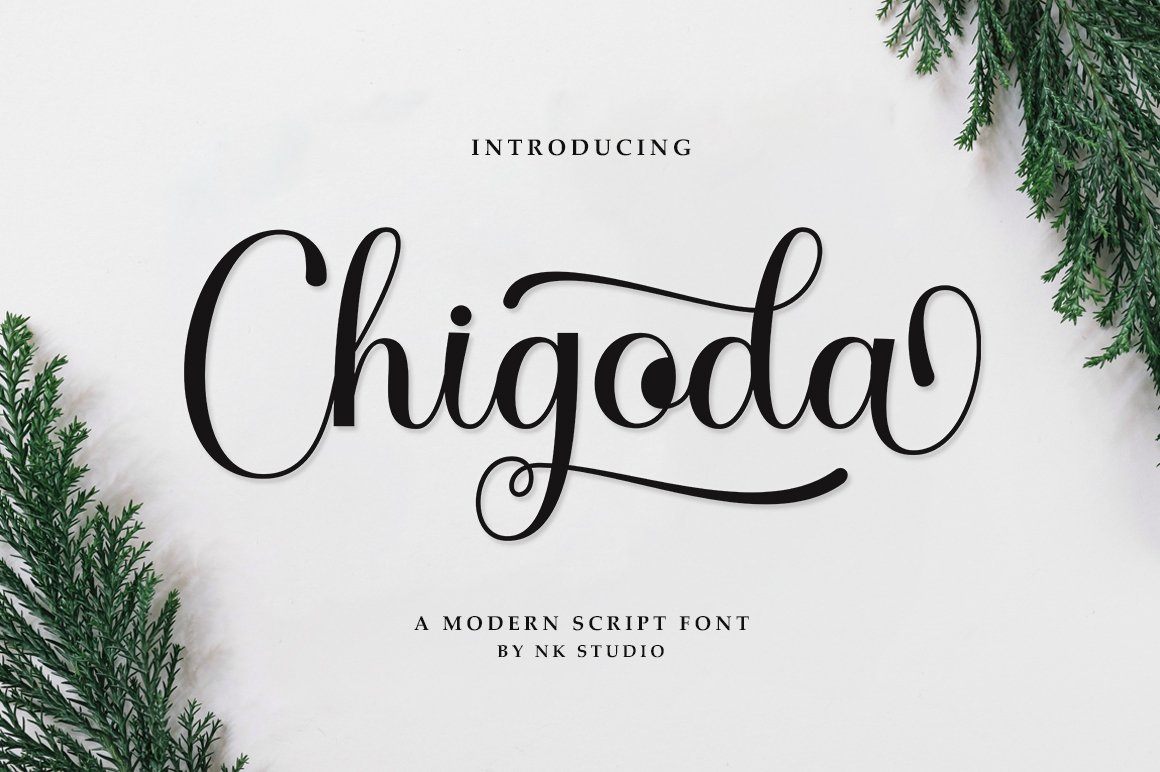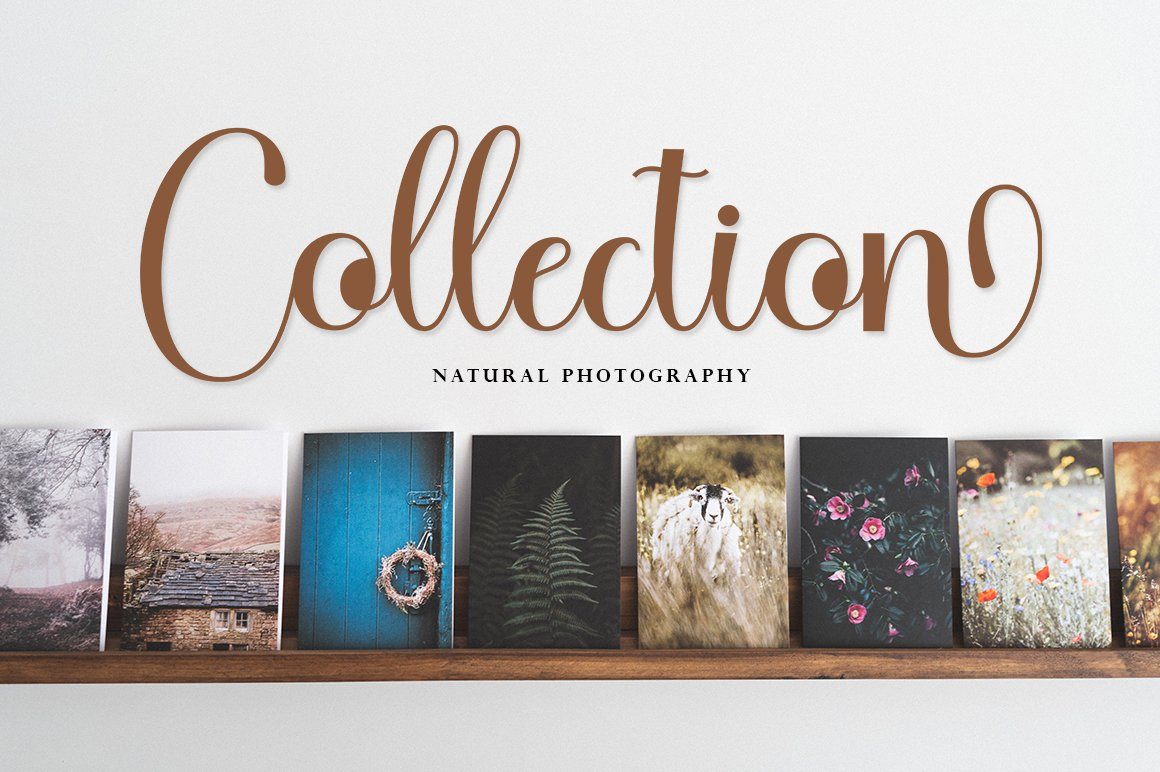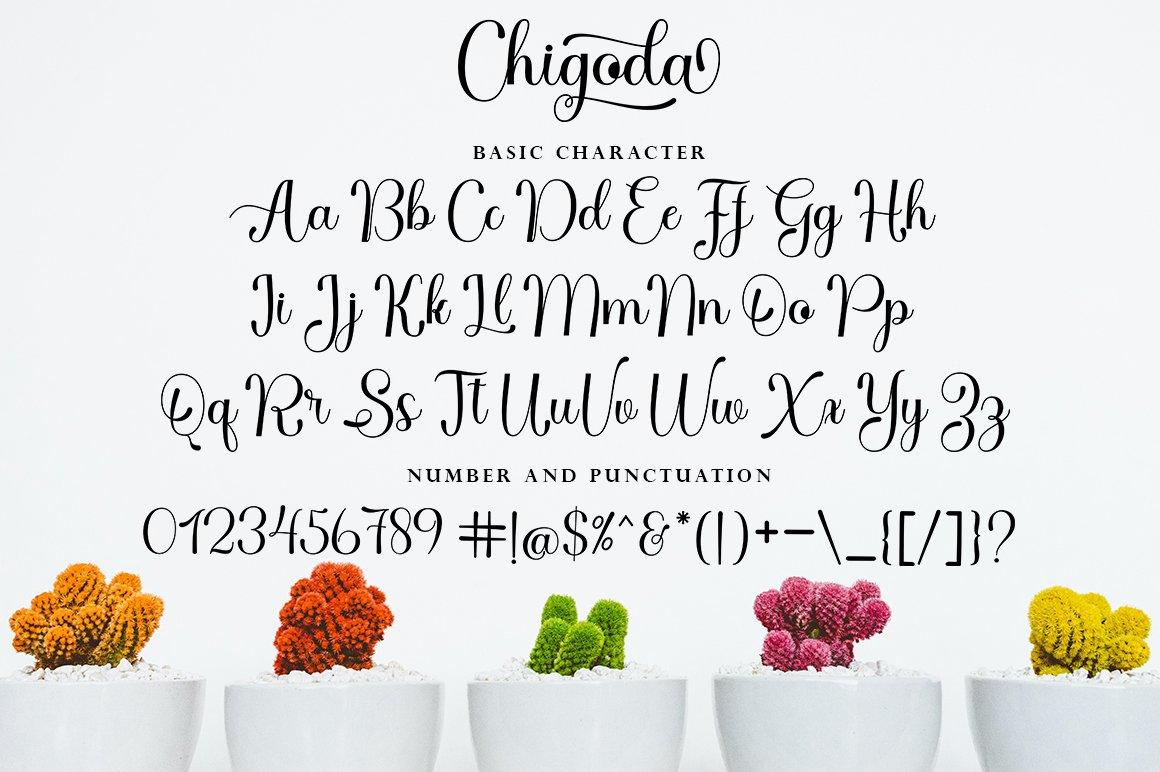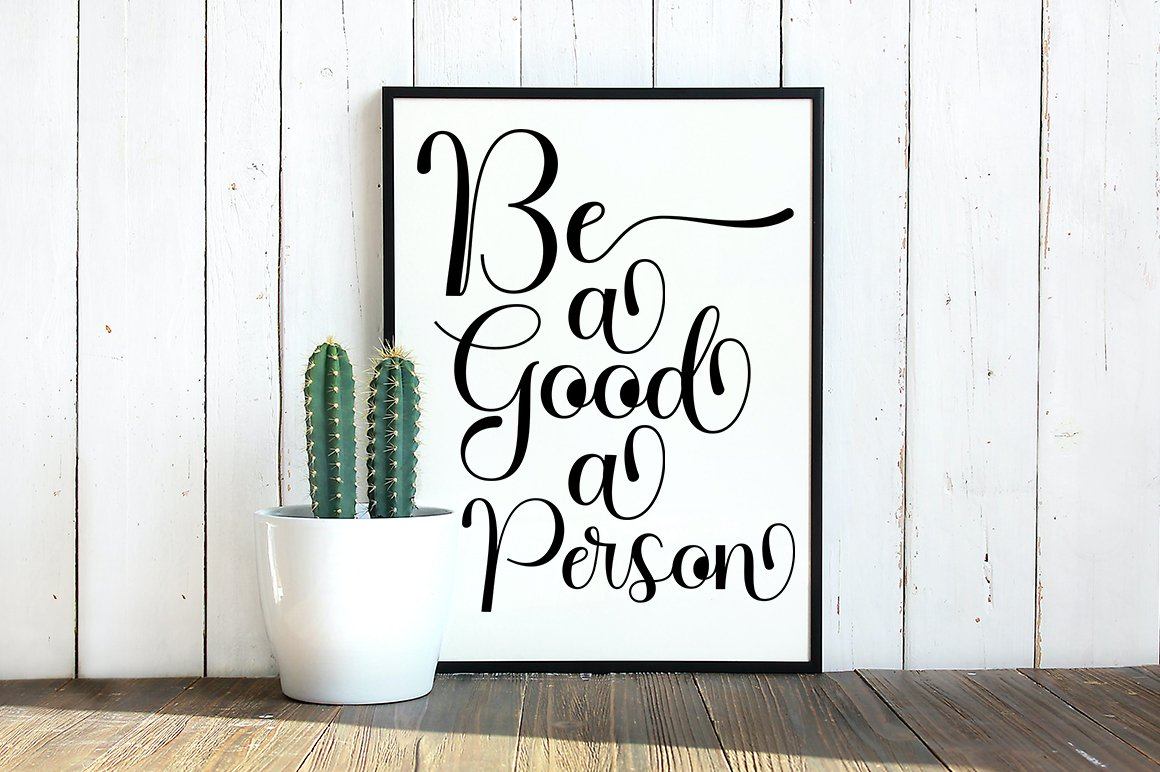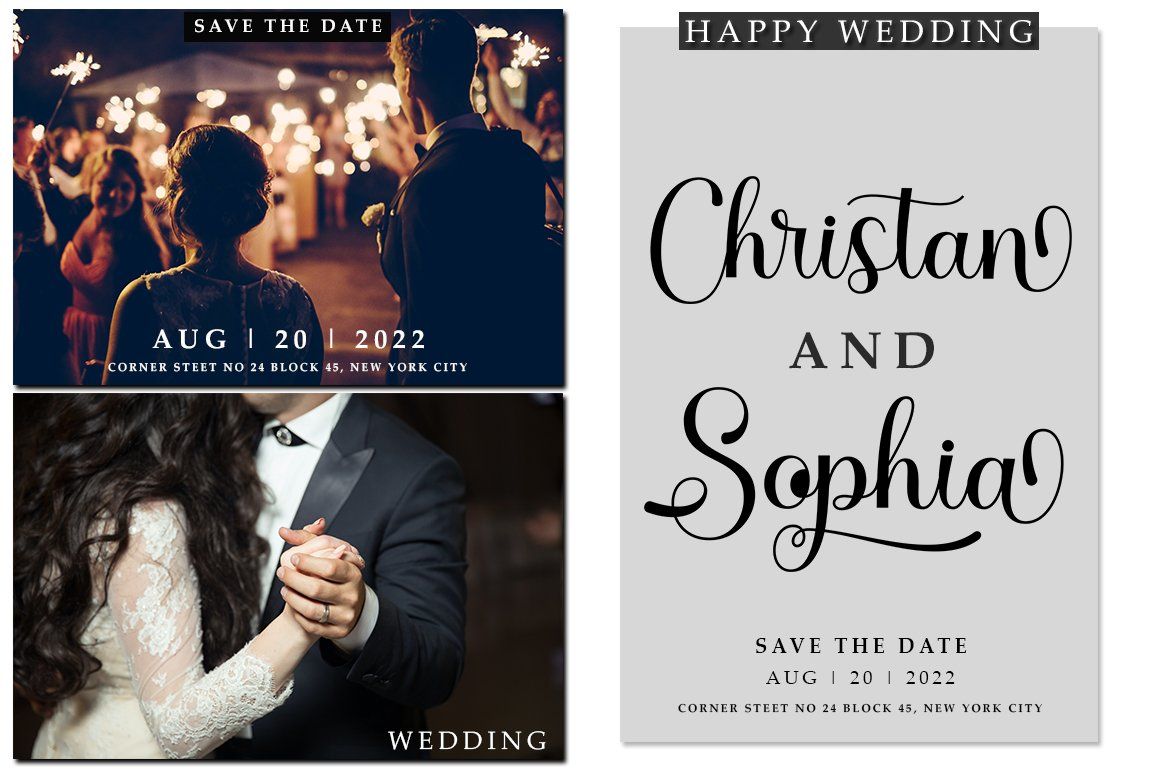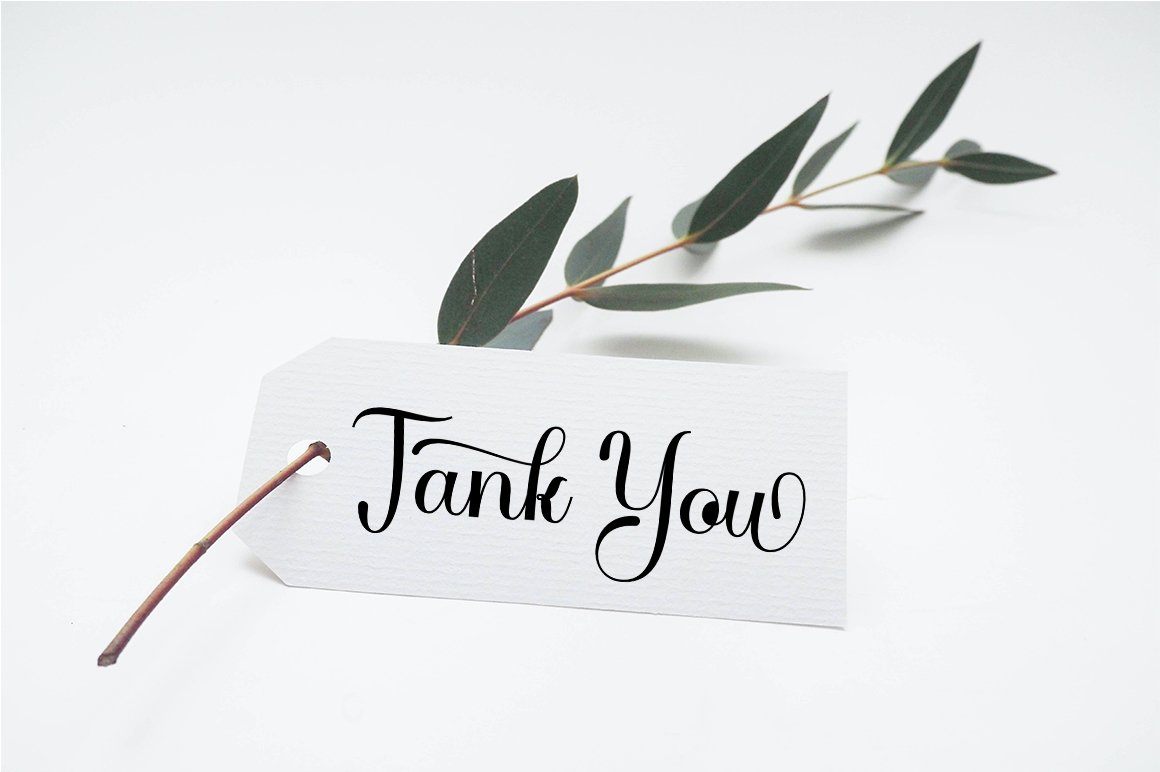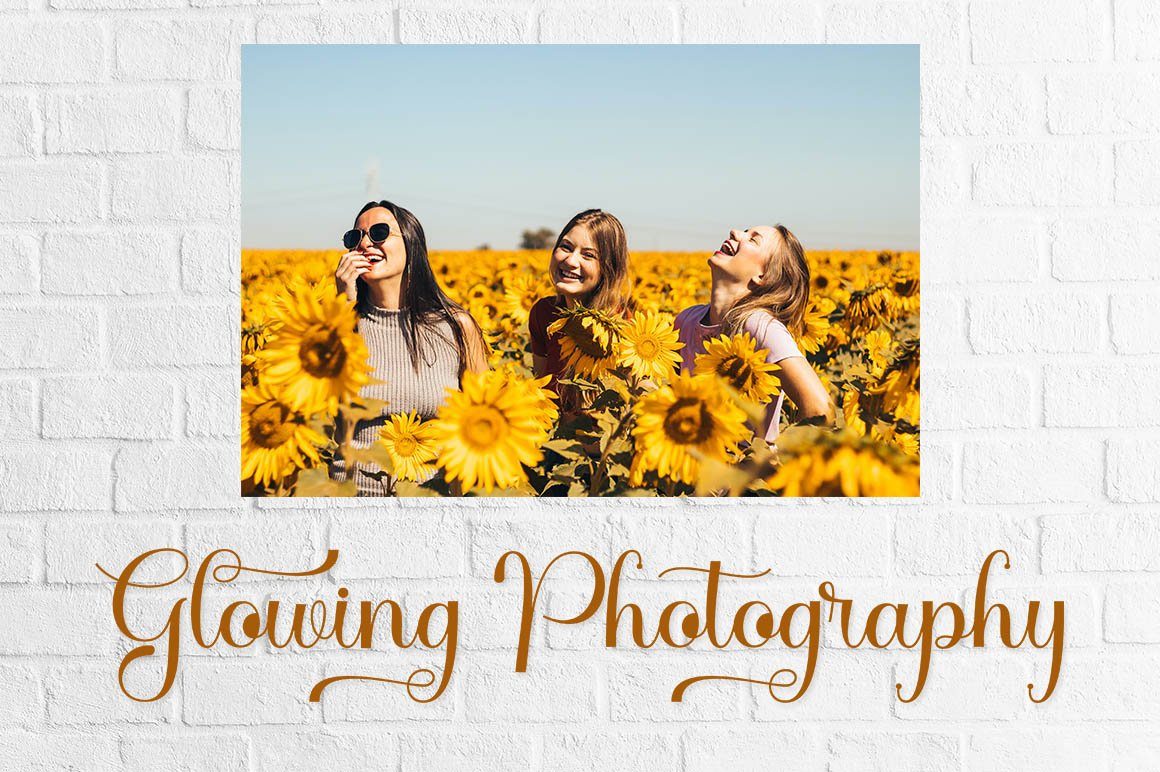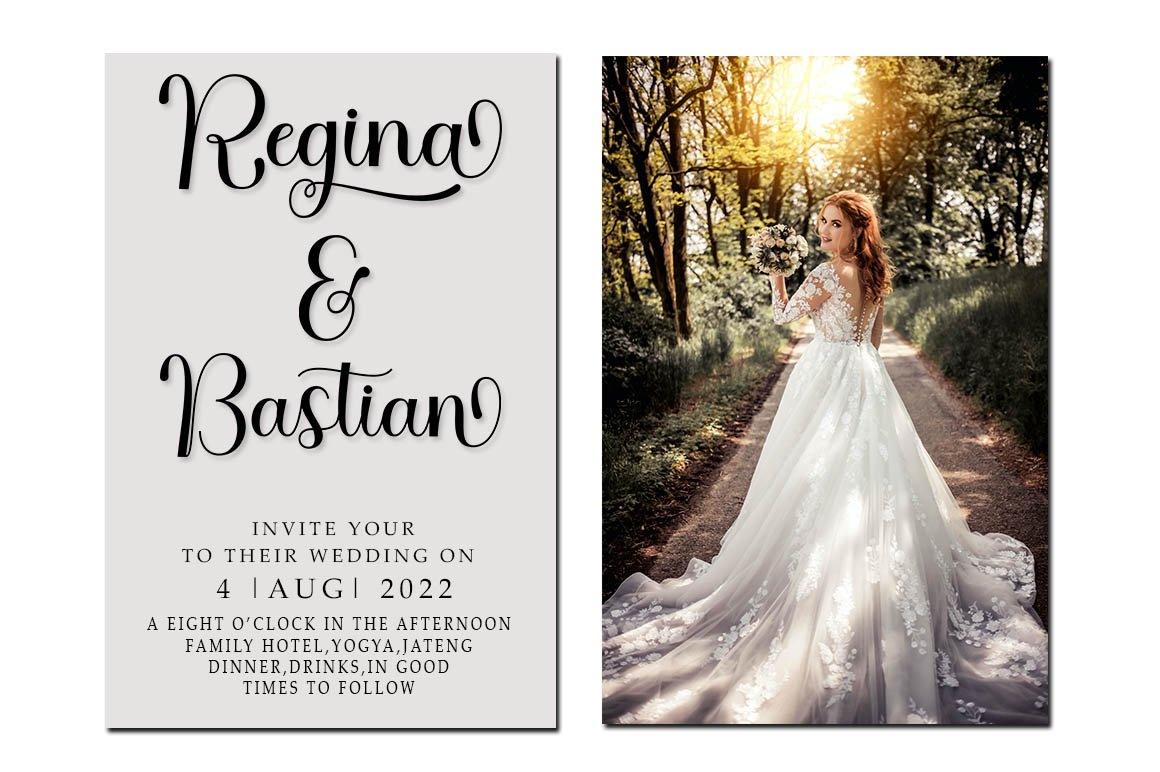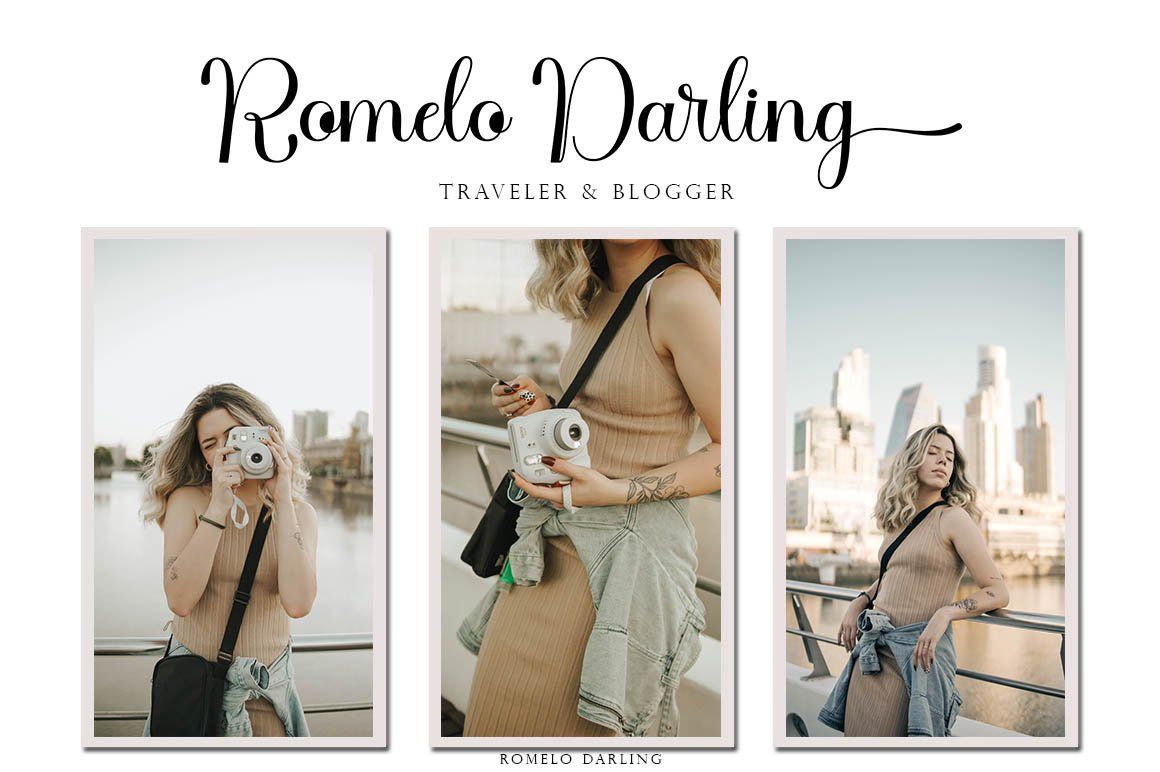
Chigoda Script
About Chigoda Script
introduce my work: Chigoda Script in a beautiful handwritten style. Equipped with 351 glyphs. Chigoda Script is perfect for branding projects, homeware design, product packaging, use in business cards, invitation cards, etc. Quite as a stylish text overlay to a background image or anything that requires a touch of elegance. Files include: – Chigoda Script OTF – Chigoda Script TTF To enable OpenType Stylistic alternates, you need a program that supports OpenType features such as Adobe Illustrator CS, Adobe Indesign & CorelDraw X6-X7, Microsoft Word 2010 or a later version. Thanks for checking! I really hope you enjoy it. regards Nk Studio